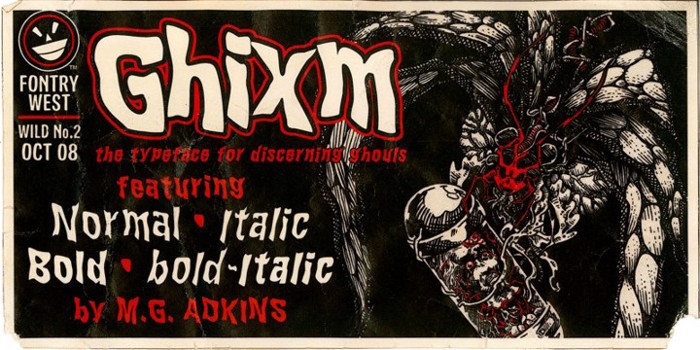
WILD2 Ghixm NC Font
Accidents happen. Things go where they don't belong, get changed - remade. Something new crawls out of the murky depths. Ghixm is a retrospective of the horror comics and movie posters of the 1960s and the 1970s. It's fluid forms harken to watery graves and tentacled unnameable horrors. These twisted shapes are reminiscent of titles that will make your skin crawl. It’s already warped and twisted, so don't hesitate to abuse it. This face can take it and still deliver its chaotic message.